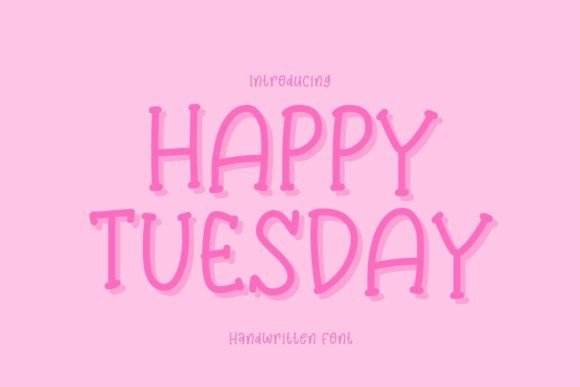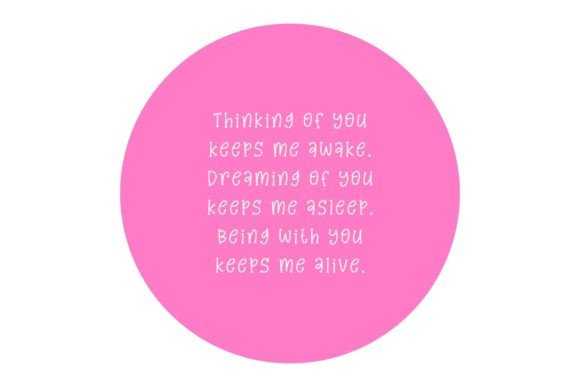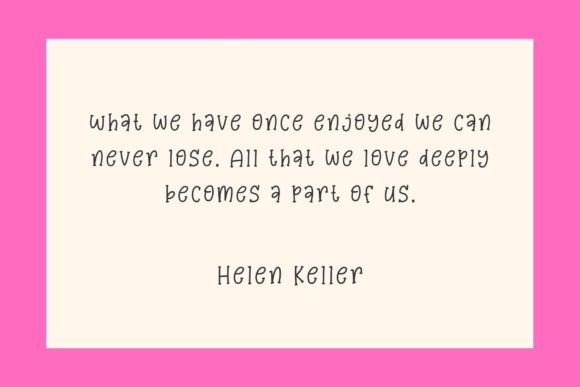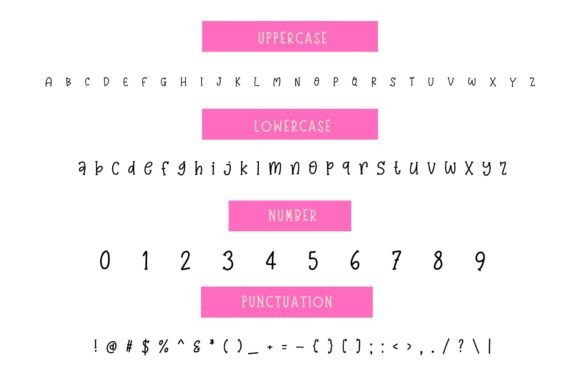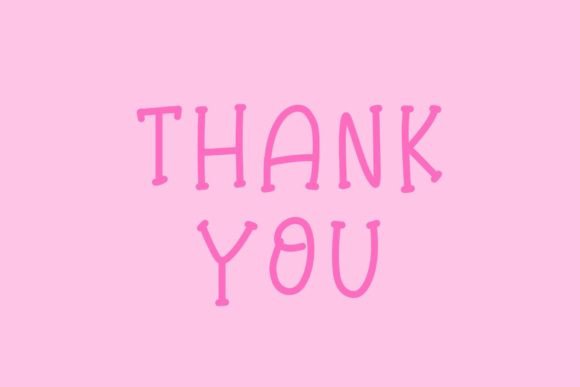
Discover the Joy of Happy Tuesday Font
Who else starts their week off by scrolling through their social media feeds, sipping coffee, and mentally planning out their creative projects for the day? It’s that special moment when the weekend’s behind us, and a fresh start awaits. For many of us, it’s the perfect time to inject some excitement and positivity into our work. That’s exactly what Happy Tuesday Font is designed to do – spread happiness and encouragement through its lively and energetic letterforms.
This cheerful typeface is perfect for designers looking to add a pop of color and optimism to their projects. Whether it’s a social media graphic, a greeting card, or a motivational poster, Happy Tuesday Font is the ideal choice to kick-start your week on a high note. Its versatility and playfulness make it a valuable addition to any designer’s toolkit.
Key Features of Happy Tuesday Font
- Size: The font family includes multiple weights, from Thin to ExtraBold, providing flexibility for various design needs.
- Unique Characteristics: This font features a distinctive, modern aesthetic with subtle rounded edges and a friendly feel, making it perfect for branding, advertising, and editorial content.
- Language Support: Happy Tuesday Font includes comprehensive language support, covering a wide range of languages, including Latin, Cyrillic, and Greek scripts.
- Scalability: The font’s design ensures that it remains legible and visually appealing across various font sizes, from small text to large headlines.
Designer Review: Happy Tuesday Font
Overall, I’m giving Happy Tuesday Font a solid 3.5 out of 5 stars. Here’s my breakdown:
- The font’s playful and cheerful vibe is perfect for branding and marketing materials.
- The font’s legibility is great, even at smaller sizes, making it suitable for a wide range of applications.
- The font’s versatility is impressive, with 12 different styles to choose from, including bold, italic, and script options.
- The font may not be the best choice for formal or professional documents, as its playful nature may come across as unprofessional.
- The font’s script styles can be a bit too ornate, making them difficult to read at small sizes.
- The font may not be compatible with all operating systems or devices, which can be a limitation for designers who need to ensure cross-platform compatibility.
Overall, Happy Tuesday Font is a fun and versatile font that’s perfect for brands and designers who want to add a playful touch to their materials. While it may not be suitable for all applications, it’s definitely worth considering for projects that require a cheerful and approachable vibe.
The Happy Tuesday Font is ideal for creating cheerful and motivational content. Use it for:
- Wedding invitations and decorations
- Party invitations and social media posts
- Quote graphics and inspirational posters